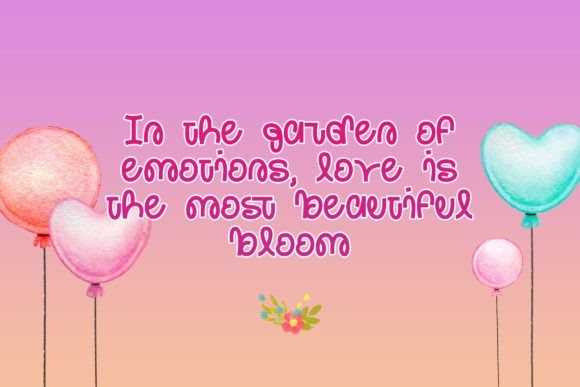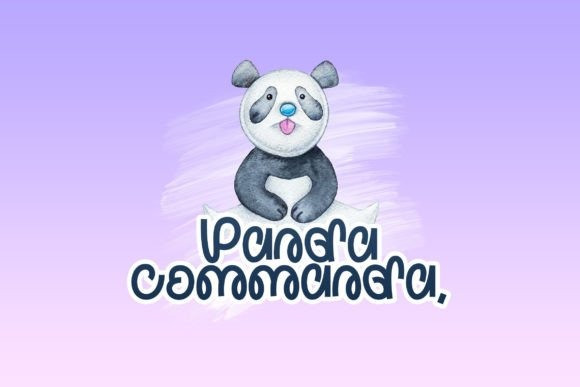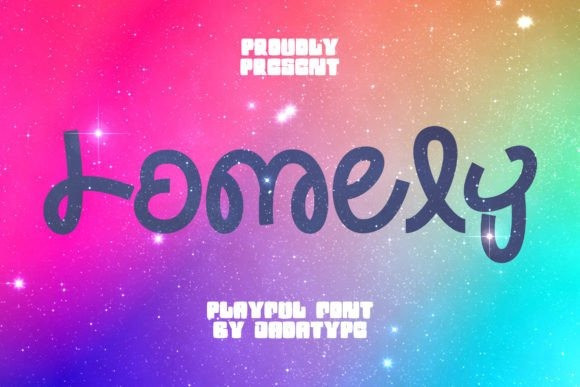
Lomely Font
Lomely Font a vibrantscript font infused with a dash of whimsical charm. A perfect choice for creating a bold statement on t-shirts, leaving a lasting impression on branding initiatives, or simply adding a unique twist to your social media content. Lomely features a complete set of English letters, numbers, and punctuation, adding versatility to your font arsenal. Beyond the basics, Lomely also brings a multilingual edge to your projects with the inclusion of various language accents, breaking boundaries in design.